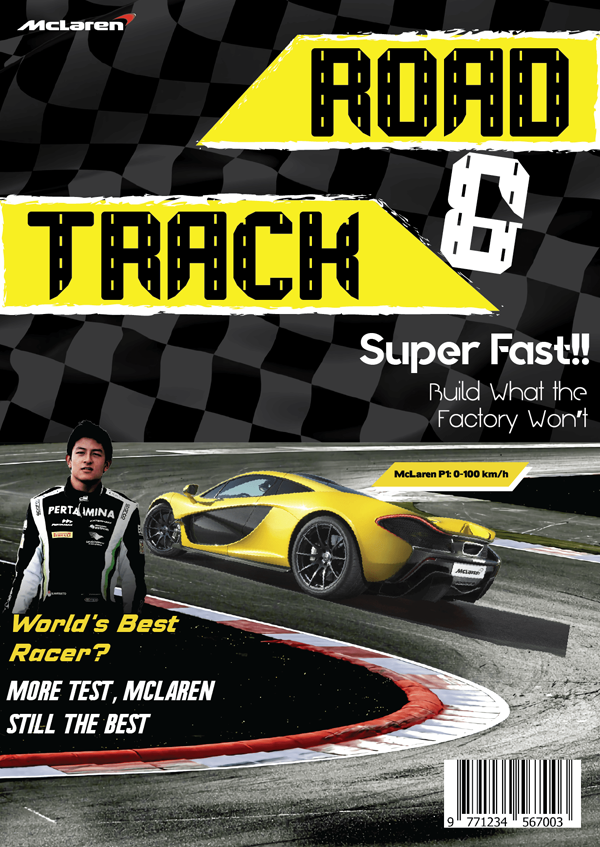
This Road Track Font is inspired by the road stripes and it also has that kind of "rapid feeling"�when we take a look at it, because of the pointed line in some letters.� |